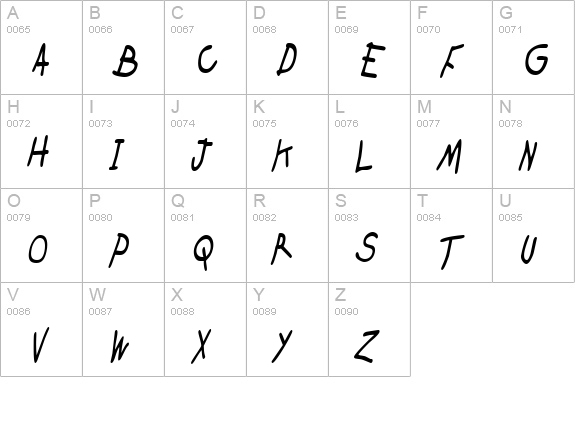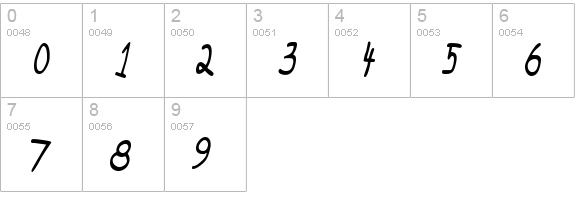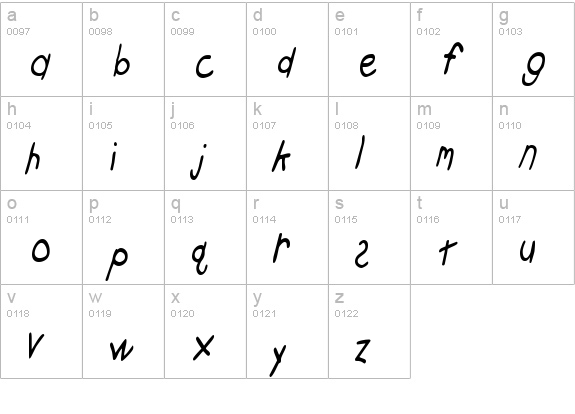
CrayonCondensed Slanted Font Details
The CrayonCondensed Slanted font is a playful and whimsical typeface that brings a unique touch to any design project. Its slanted and condensed style adds a dynamic and energetic feel, making it perfect for children's books, posters, and other creative endeavors. The hand-drawn look of the characters gives a charming and organic vibe, adding a personal touch to your designs. Best of all, this delightful CrayonCondensed Slanted font is available for free download at FontsMarket.com. Whether you're a designer looking to add a fun twist to your work or a teacher creating engaging materials for your students, this font is sure to bring a smile to anyone who sees it. Don't miss out on the opportunity to add this fantastic font to your collection today - download it for free and start creating with CrayonCondensed Slanted!